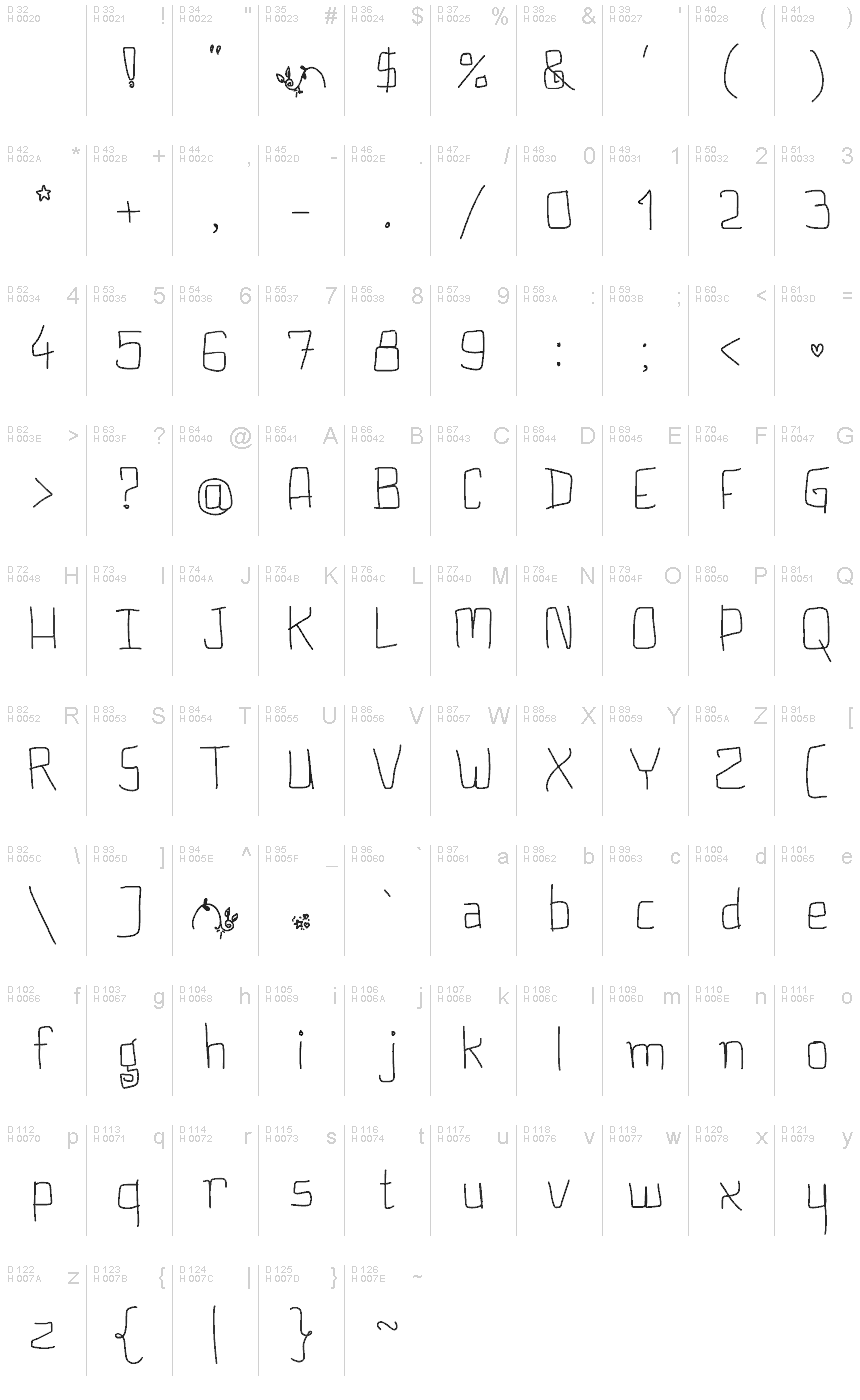
Plumpy But Cute *_
Plumpy But Cute, a charming creation by Reema Chhabra, brings the personal touch of handwritten aesthetics to your design projects. This font exudes warmth and friendliness with its extra-light weight and semi-condensed width, offering a delightful blend of whimsy and legibility. The gentle curves and soft lines lend it an amiable character that's perfect for invitations, greeting cards, children's books, or any project that benefits from a handcrafted feel.
The playful yet sophisticated nature of Plumpy But Cute makes it versatile for both digital screens and print media. Its inviting appearance is well-suited for branding campaigns that aim to connect emotionally with the audience. Embrace the unique charm of Plumpy But Cute in your next creative endeavor to add a touch of endearment and personality.